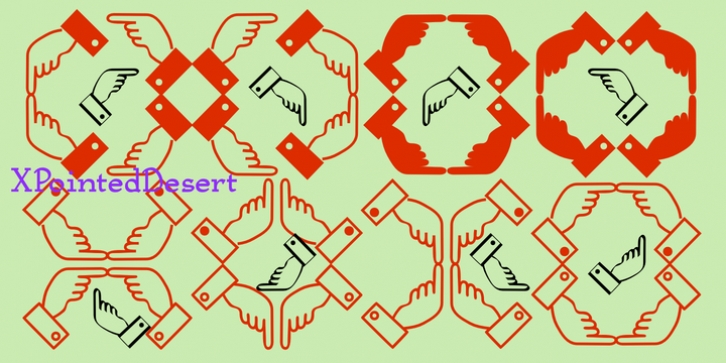
XPointedDesert and XSimpleHands do not have as much variety in the hands as XPhyngern, but their hands point in a lot more directions--up, down, and at 45-degree angles.